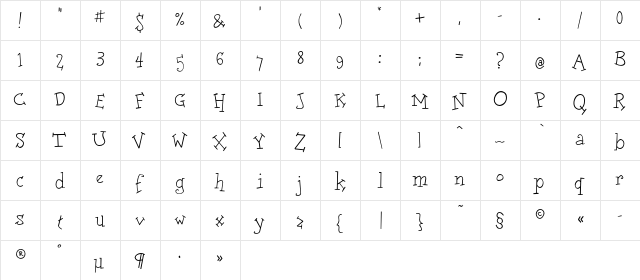
DoloresCyr Light Regular Font Preview
DoloresCyr Light Regular
Design Context for DoloresCyr Light Typeface
DoloresCyr Light takes a measured approach to typography — its balanced proportions and neutral character make it a reliable workhorse for both digital and print work. The delicate stroke weight brings airiness and refinement to layouts.